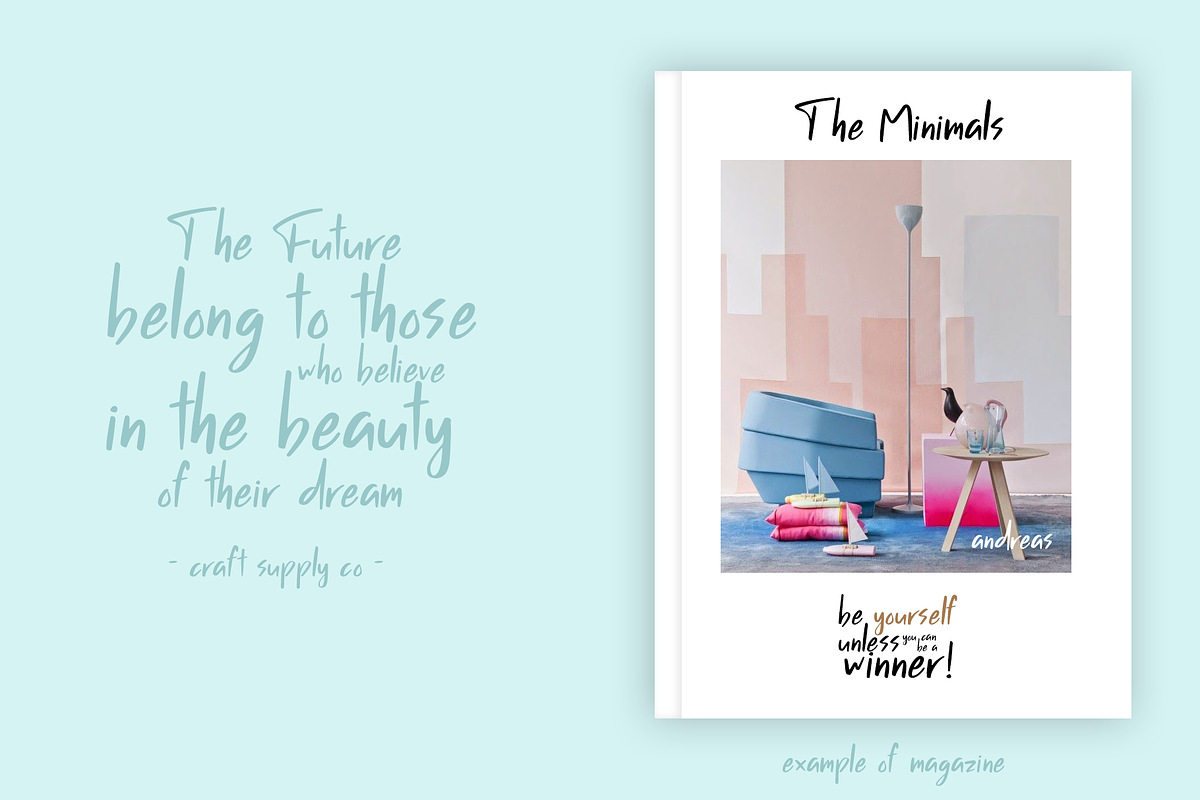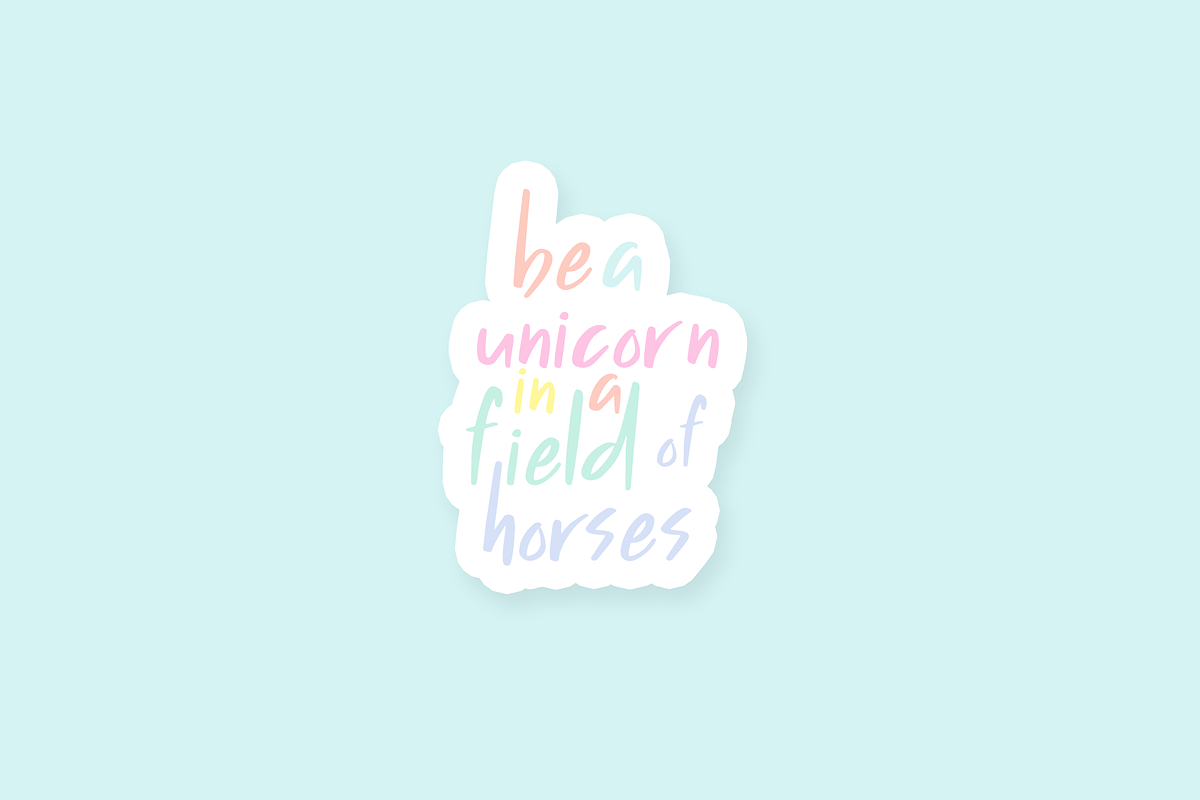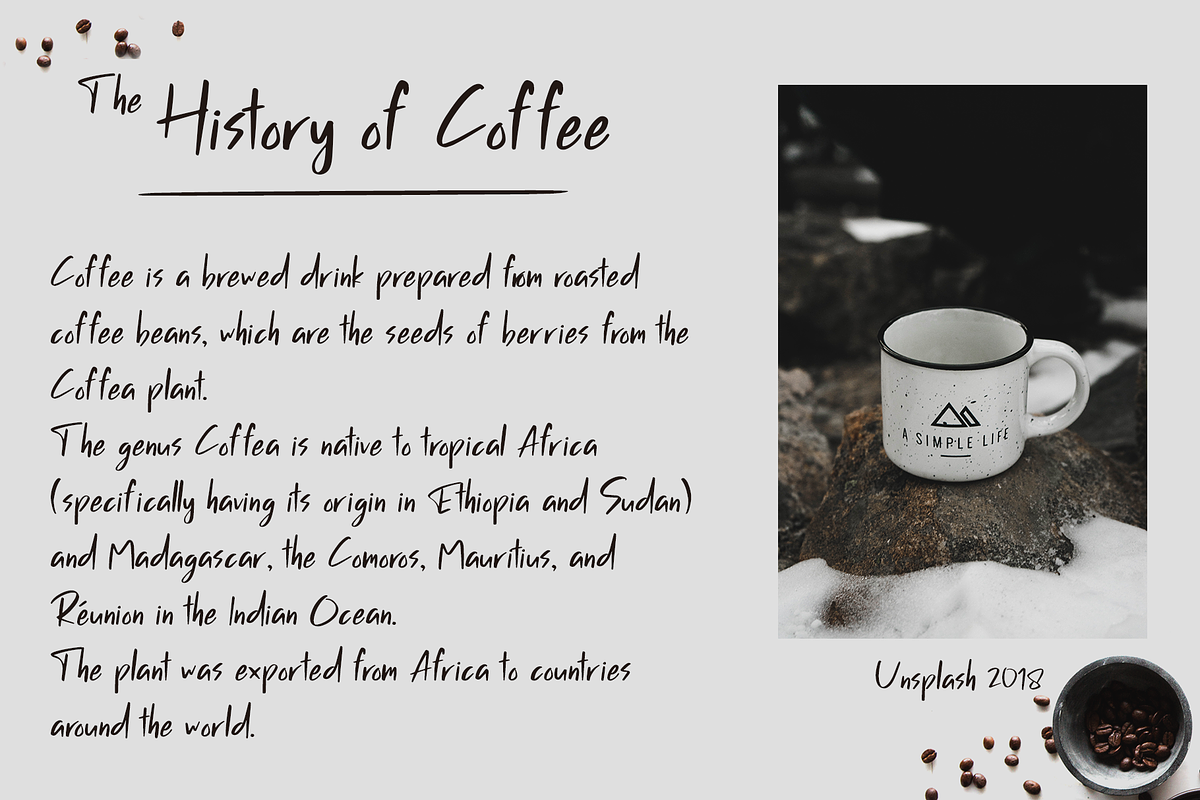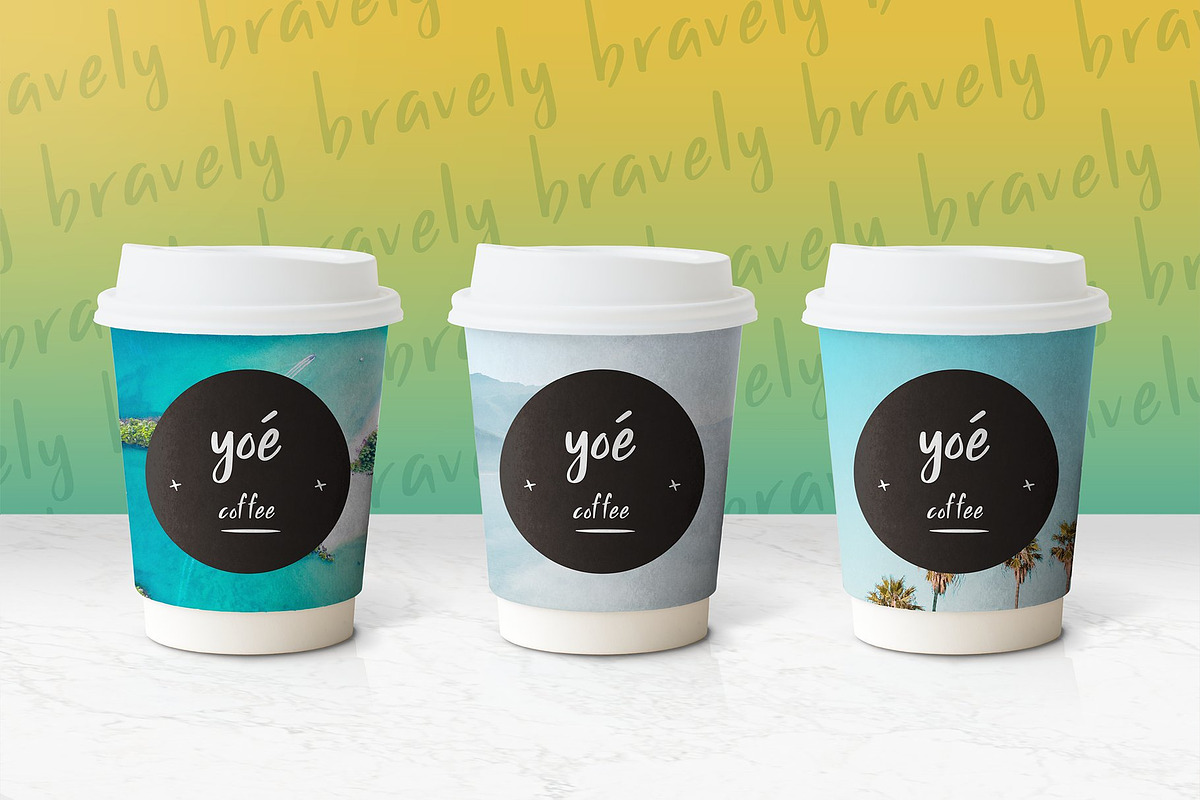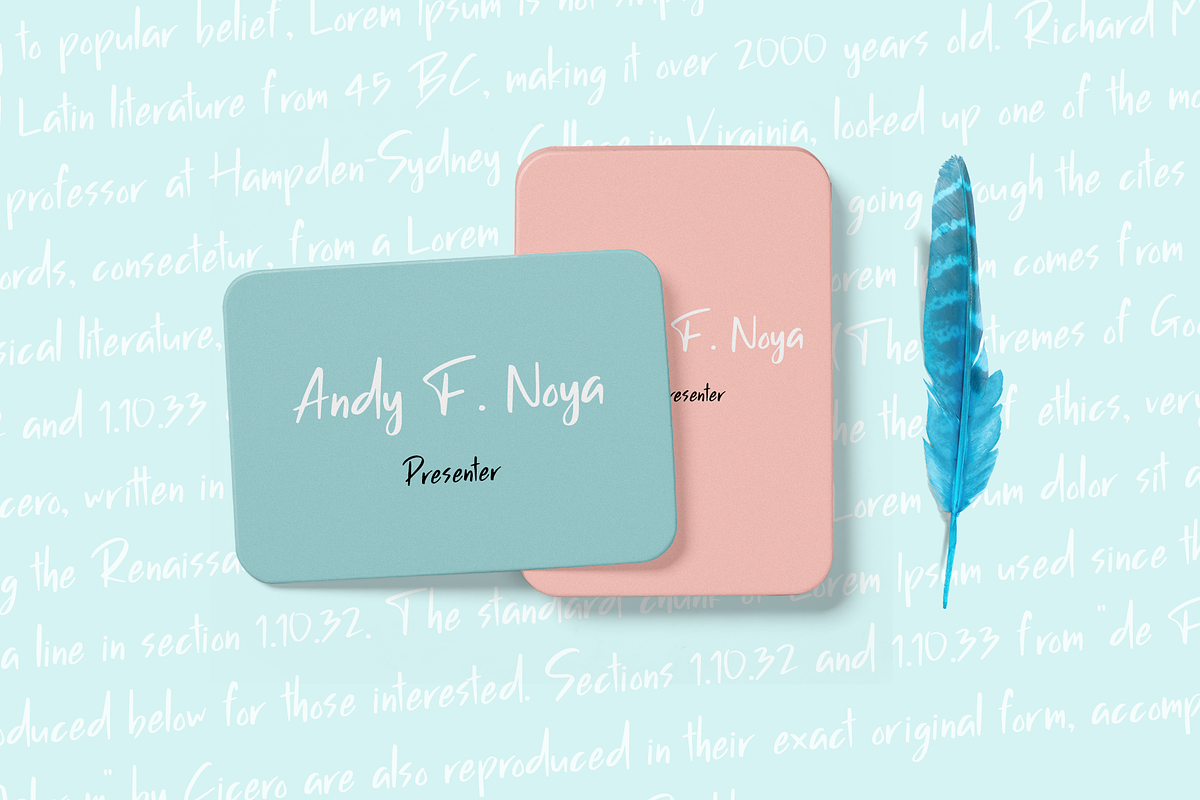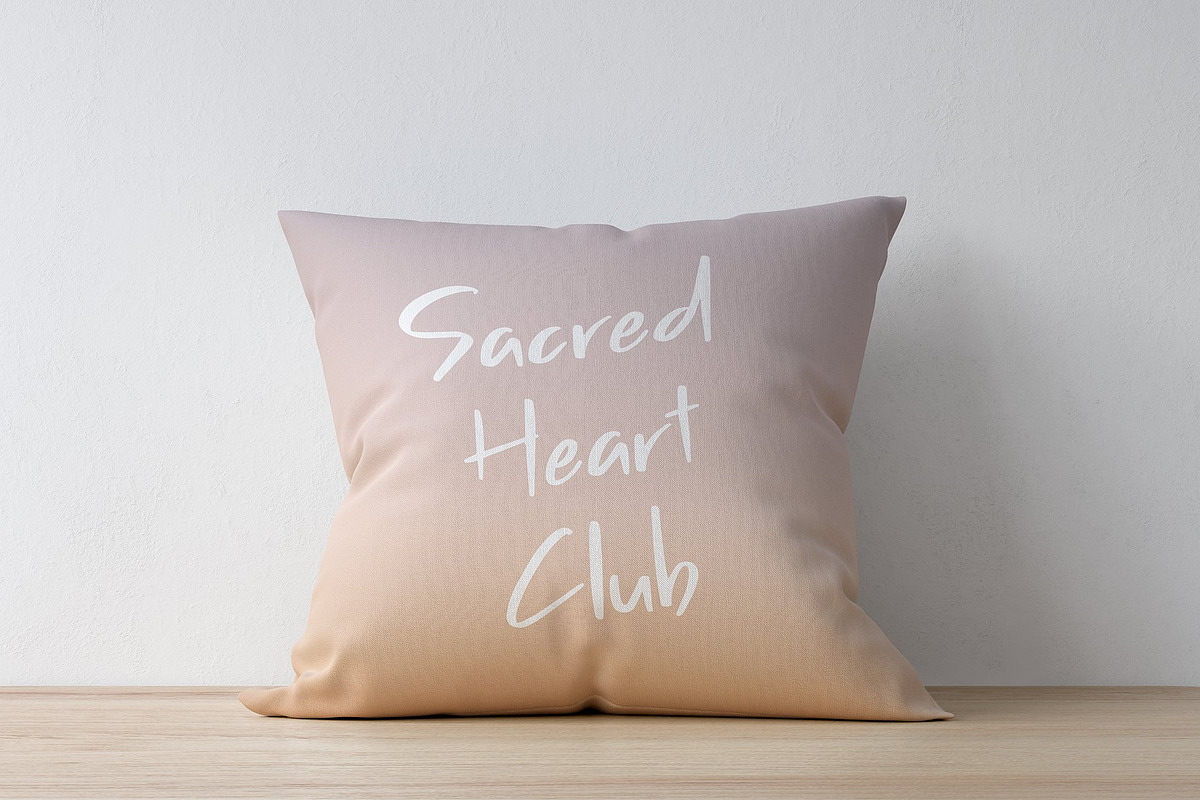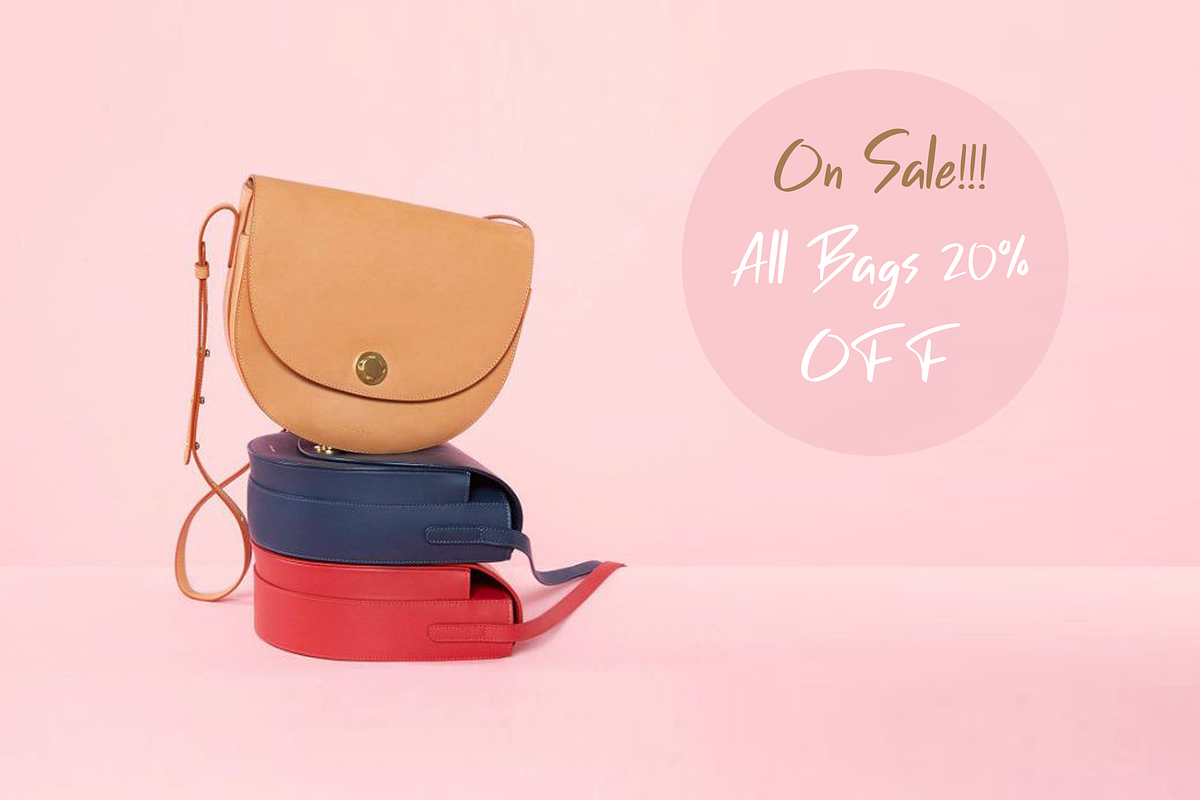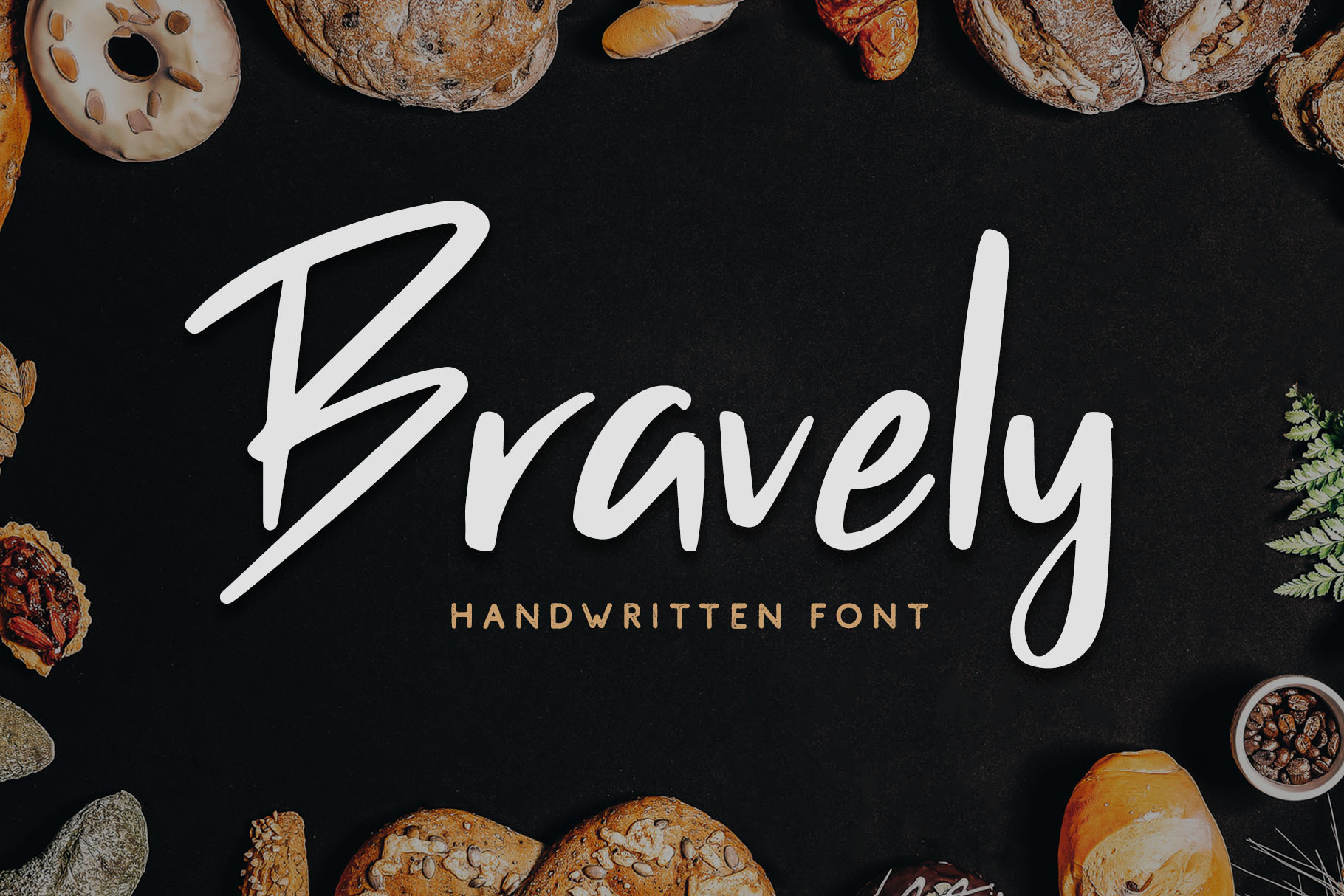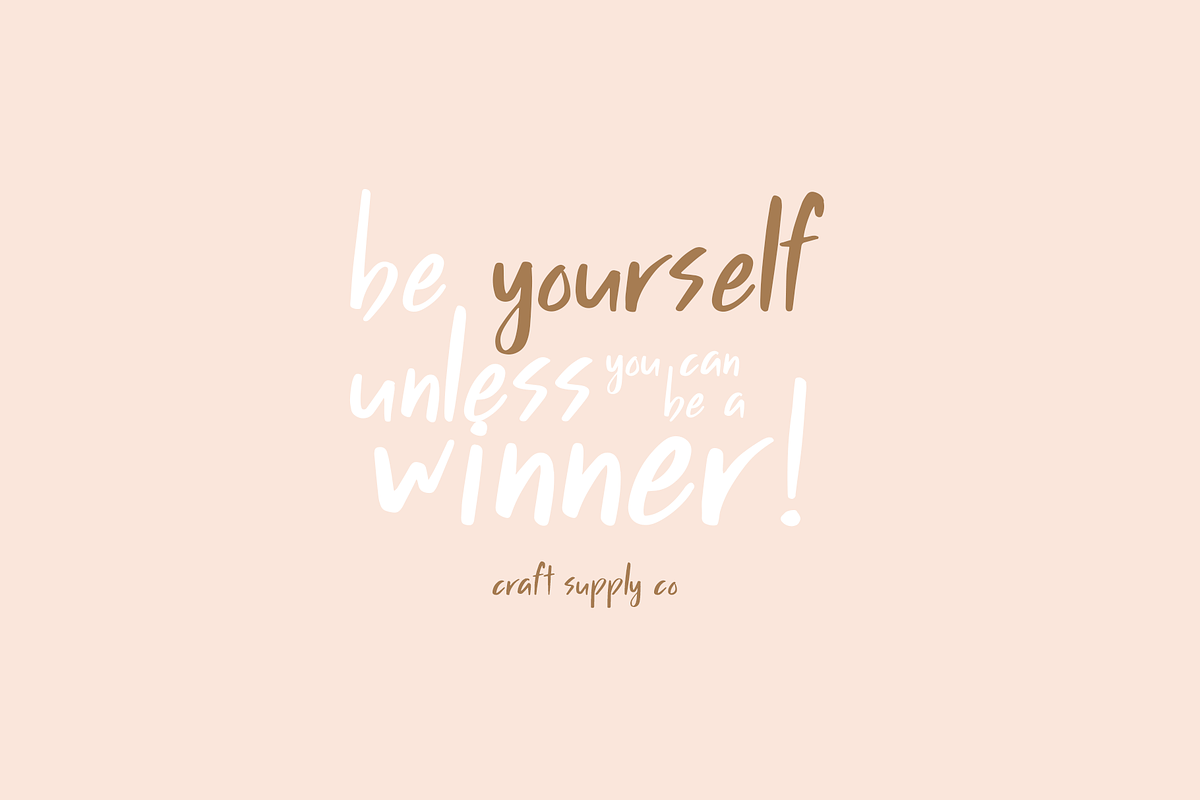
Bravely - Handwritten Font
Bravely- Handwritten Font is an handwritten script font based on the expression of real handwriting, lets you transform type into an exciting and beautiful piece of work. The irregular, hand-lettered look adds a real human touch to things and comes along with a lot of loving details. Combine all font-styles the way you want, add some ornamental swashes or banners and even a single word becomes magnificent.
Bravely- Handwritten Font has lots of alternates that gives you possibility to build your text almost like handwriting with all the charming imperfections and variations that a real handwriting has. Bravely will work perfectly for fashion, e-commerce brands, trend blogs, wedding boutiques or any business that wants to appear upscale and chic.
- Upper Case & Lowercase
- Standart Ligatures